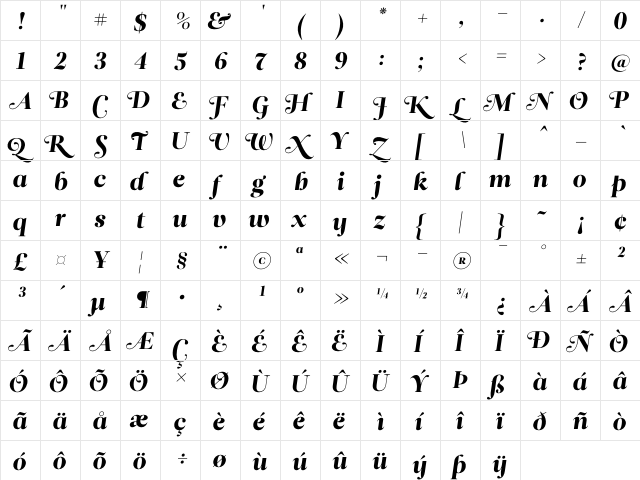
Leitura Display Swashes
| Foundry | Dino dos Santos _DSType |
| Designer | Dino dos Santos |
Design Context for Leitura Display Typeface
Leitura Display flows with the natural rhythm of handwritten lettering, making it ideal for designs that call for warmth and personal expression.
Font Pairing: Combine Leitura Display with a simple geometric sans for maximum contrast — the tension between flowing curves and clean structure is a classic typographic pairing.
Pro Tip: Use Leitura Display for short runs of text — names, titles, or taglines. Extended body copy in script faces tires the eye quickly.